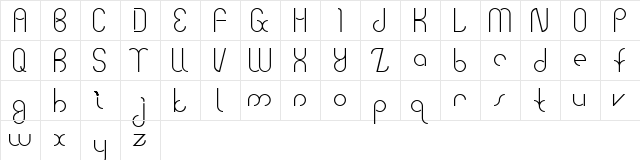
Bauhaus Two Regular
Design Context for Bauhaus Two Typeface
Bauhaus Two offers clean, dependable letterforms without strong stylistic allegiance, making it a practical choice for designers who need flexibility.
Pro Tip: Use Bauhaus Two in both headline and body roles to test its range before committing to a single application.